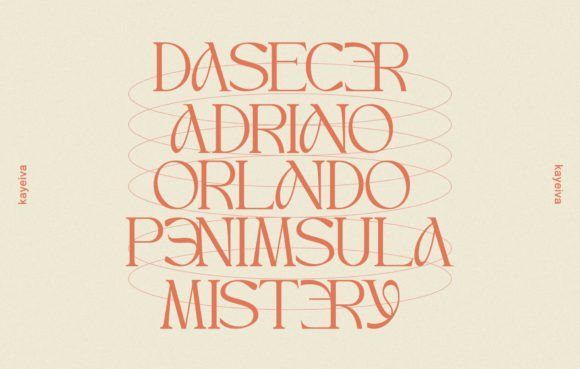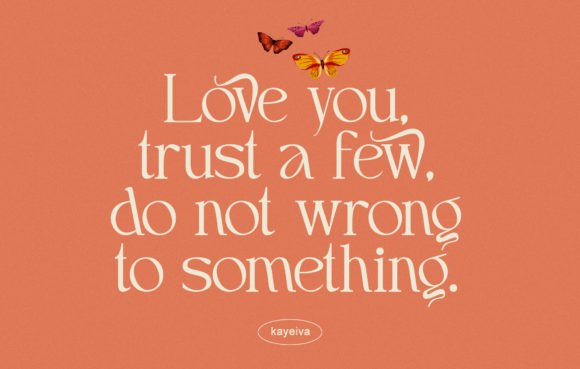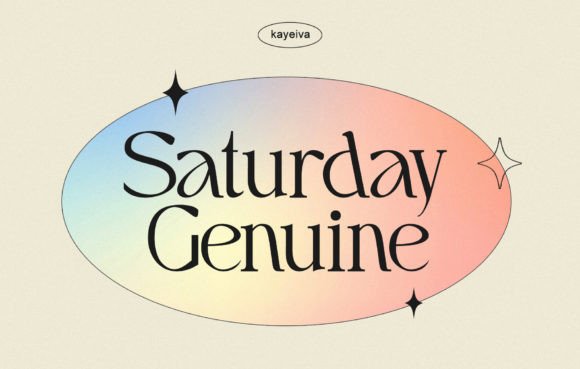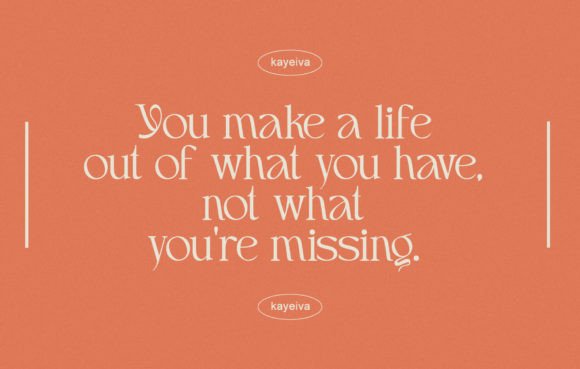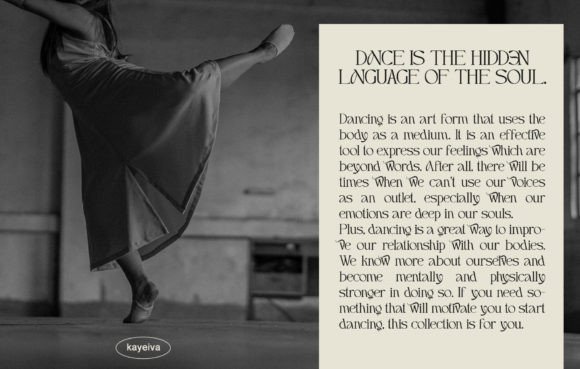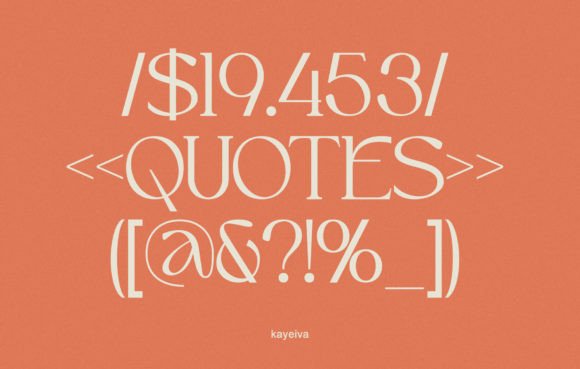
Introduction to Kayeiva Font
Have you ever been working on a creative project, pouring your heart and soul into it, and then – suddenly – you’re stuck? The perfect font is elusive, and you just can’t seem to find the right combination of style and sophistication. This is where the Kayeiva Font comes in – a modern serif ligature font revival that’s about to revolutionize your design game.
As a designer, you know that a high-quality font can make all the difference in a project. It’s the icing on the cake, the cherry on top, the final touch that elevates your design from good to great. And that’s exactly what the Kayeiva Font offers – a versatile and elegant design resource that’s perfect for everything from vintage posters to modern website headlines.
Key Features of Kayeiva Font
- High-Quality Typography: Kayeiva Font is a premium design resource that offers crisp, clear, and professional typography, perfect for creative projects requiring a touch of elegance.
- Professional Design: Kayeiva Font is designed to meet the needs of professional designers and artists, offering a range of styles and variations to suit various creative projects.
Honest Review: Kayeiva Font
I recently stumbled upon the Kayeiva Font and I’m excited to share my thoughts on this design resource. As a designer, I’m always on the lookout for high-quality fonts that can elevate my creative projects. In this review, I’ll break down what works well and any limitations I’ve encountered.
- High-quality design: The Kayeiva Font boasts a clean and modern aesthetic, making it perfect for a variety of design projects.
- Limited font styles: The Kayeiva Font only offers a few font styles, which may limit its versatility in certain design projects.
- No bold or italic variants: I would have liked to see more font weight options to provide more flexibility in design.
Overall, I’m impressed with the Kayeiva Font’s clean design and transparent background. While it may not be perfect, it’s a solid addition to any designer’s toolkit. I’d recommend it for those looking for a high-quality, free font for their creative projects.
The Kayeiva Font is perfect for a variety of creative projects, including logos, business cards, and social media graphics. It’s also great for creating presentations and documents with a professional look and feel.